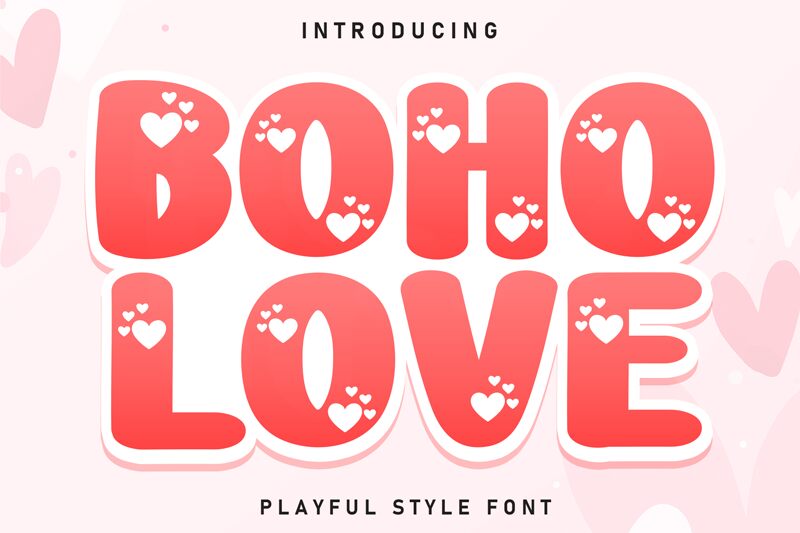
Boho Love font by Scratchones is a free font with a carefree holiday spirit. Its vibrant and decorative letters resemble hand lettering with simple connections and rounded shapes. Playful hearts add character to the font’s youthful design, giving it a friendly, fun, and modern feel. Instantly appealing, the font is great for adding slight nuance to any visual project.
Boho Love suits poster designs, especially for special events of the romantic kind. Perfect pairing would be for branding or rebranding a business, as a store display font, book covers, packaging, magazines, or pretty much any print design. Use it for online titles and artworks, or social media cards.